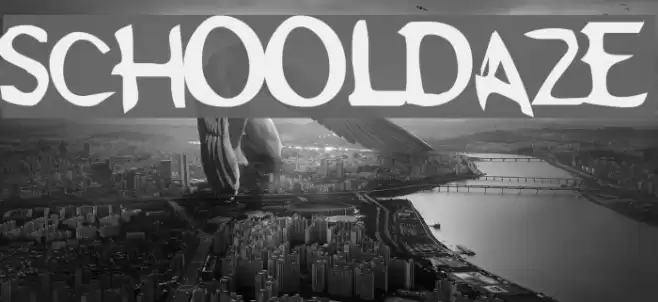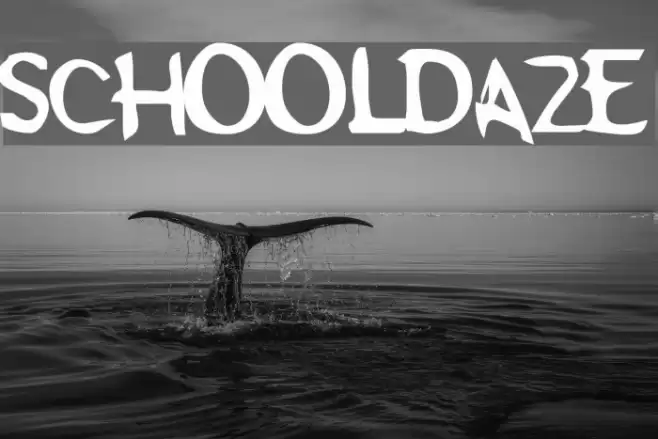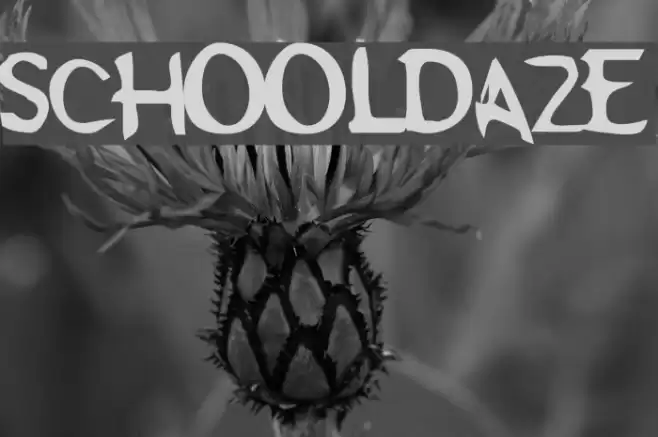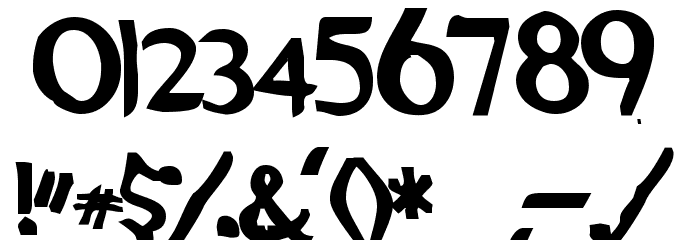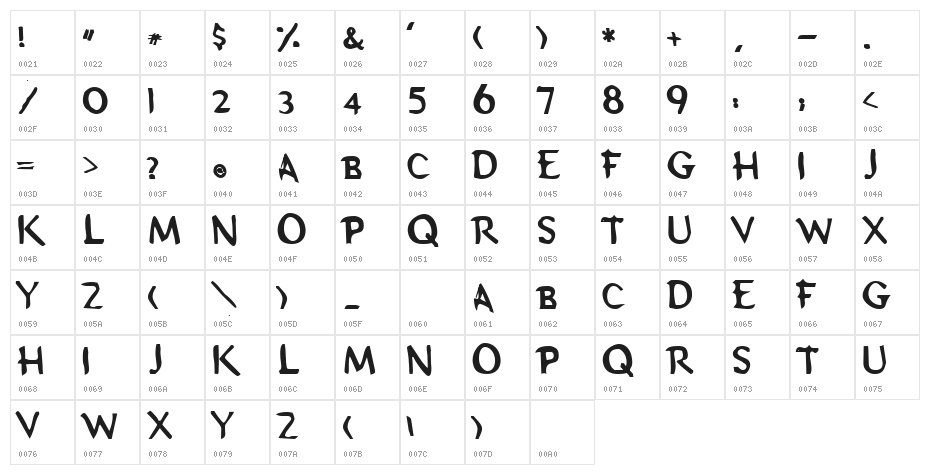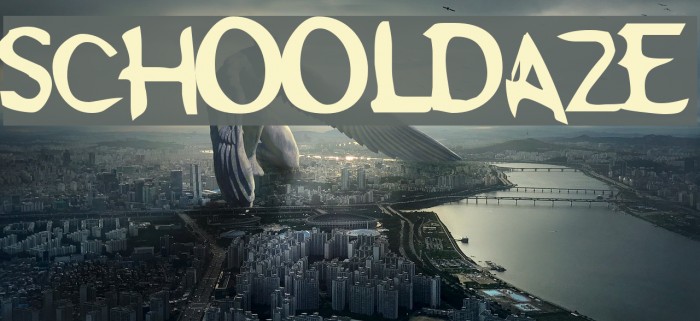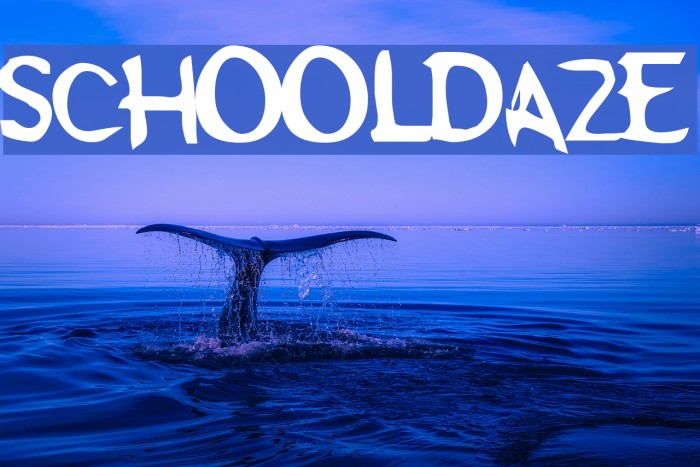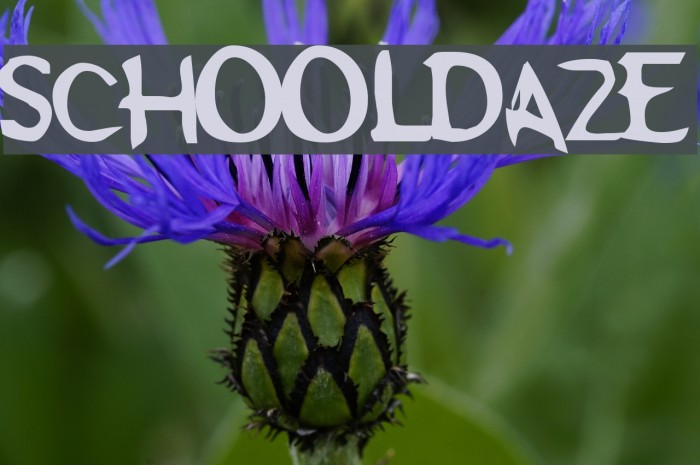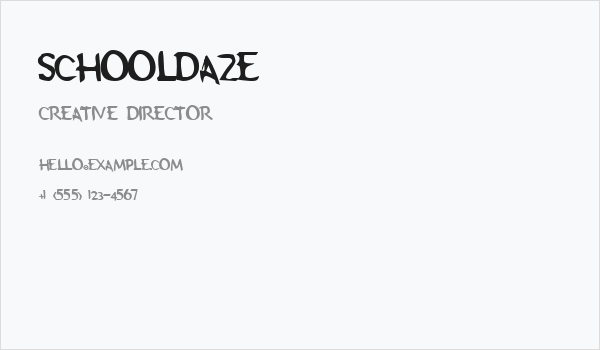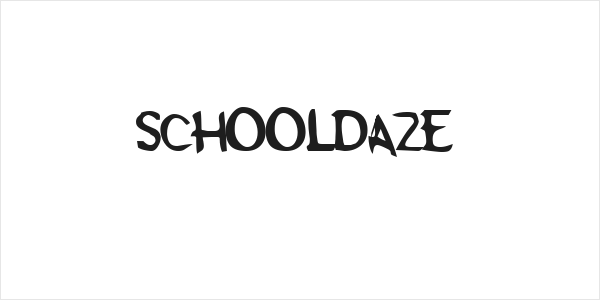
Schooldaze Font
Schooldaze Description
This font features a playful and energetic style, characterized by its bold and slightly irregular letterforms. The strokes are thick and have a hand-drawn quality, giving it a casual and informal appearance. The uppercase and lowercase letters maintain a consistent style, with rounded edges and a slight slant that adds to its dynamic feel. The numbers and special characters follow the same playful design, making it suitable for creative and fun projects. The overall look is reminiscent of chalkboard writing, making it ideal for educational or child-focused designs.
A playful, bold font with a hand-drawn, chalkboard-like style from Capitals fonts.
- Proposed Projects: Ideal for educational materials, children's books, playful branding, and creative posters.
- Overall Style: Playful, Casual